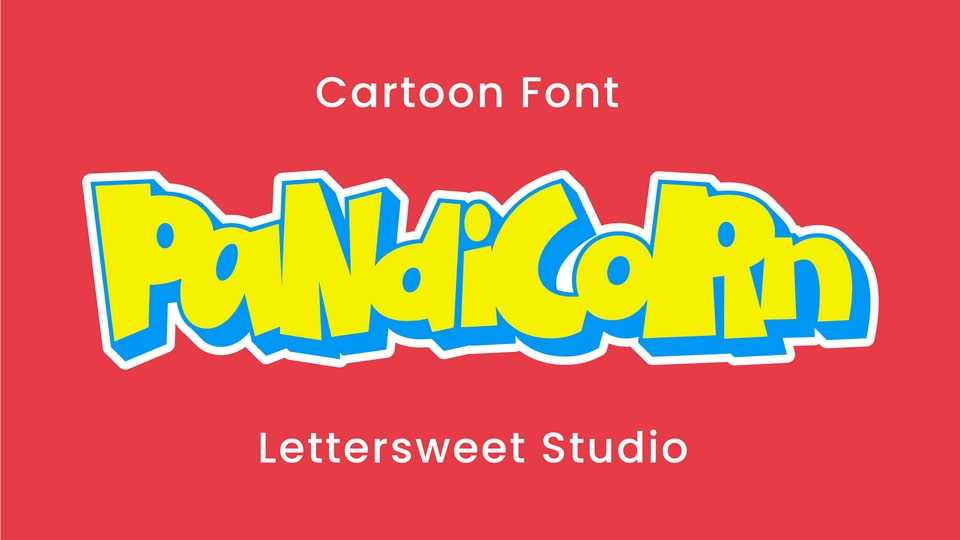
Download Pandicorn font, a cheerful and imaginative cartoon typeface designed specifically for children’s projects. Its playful curves and bold colors capture the fun and wonder.